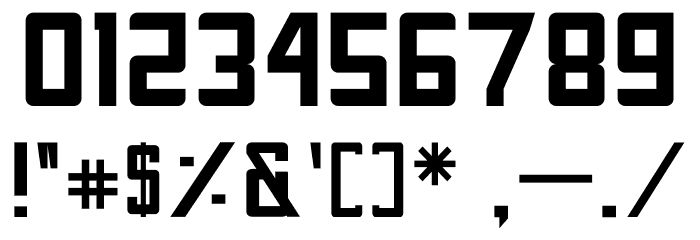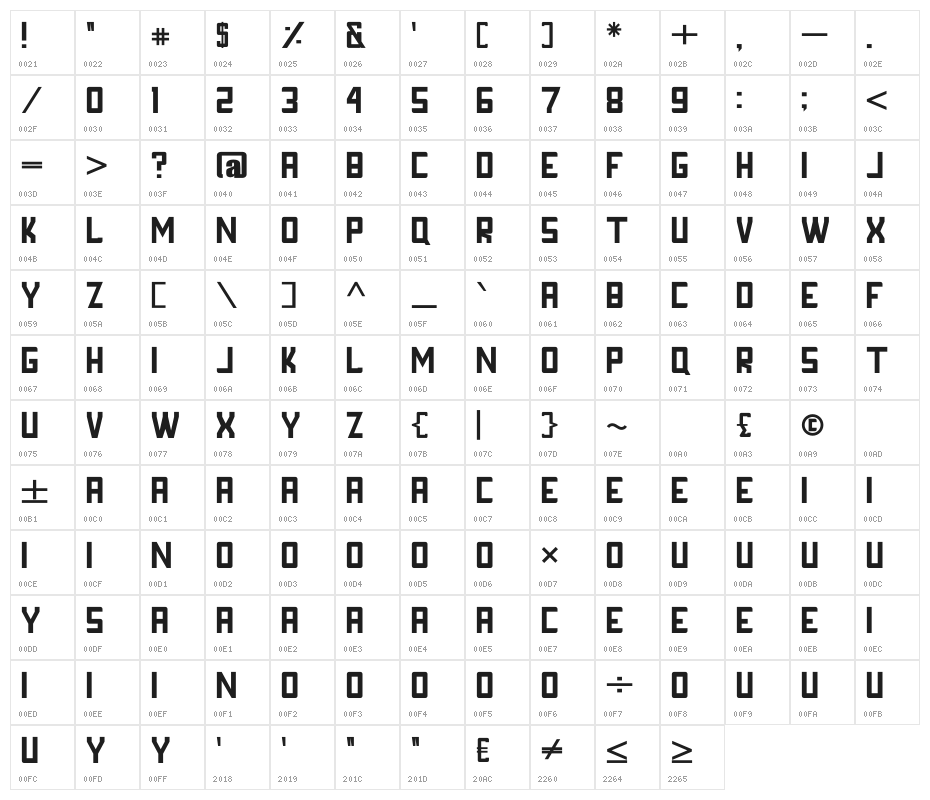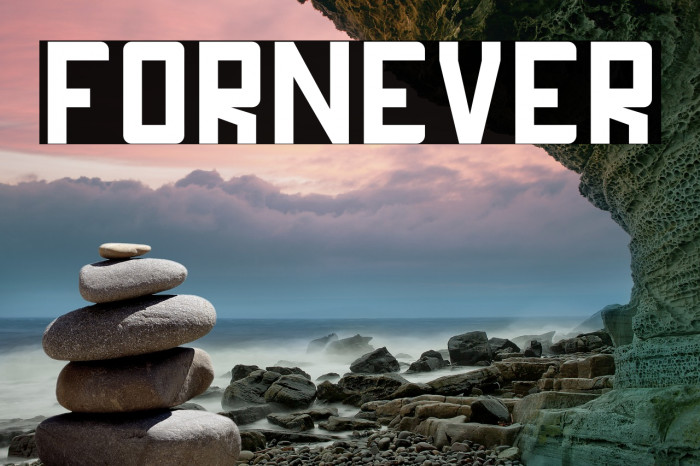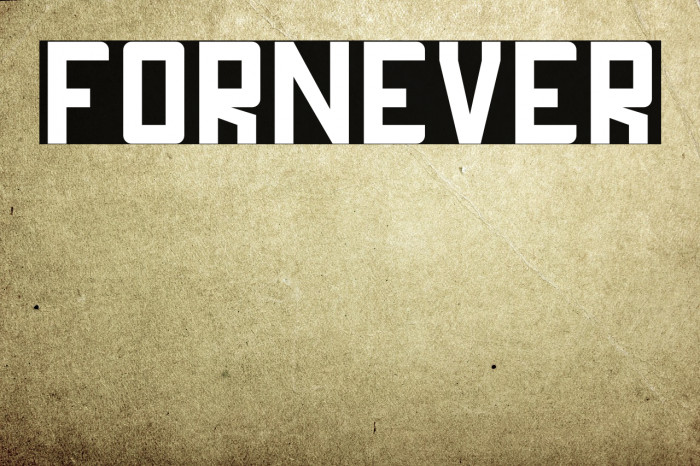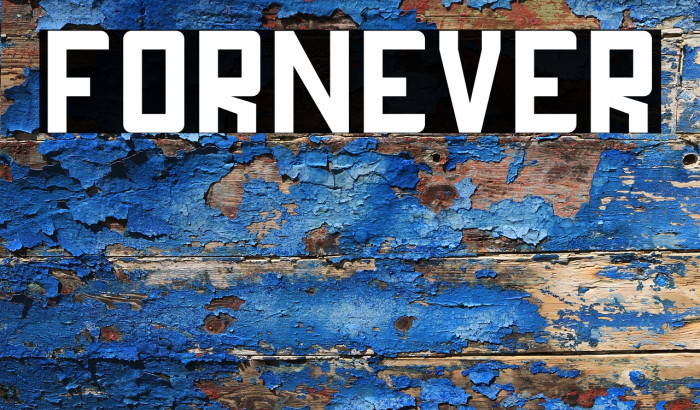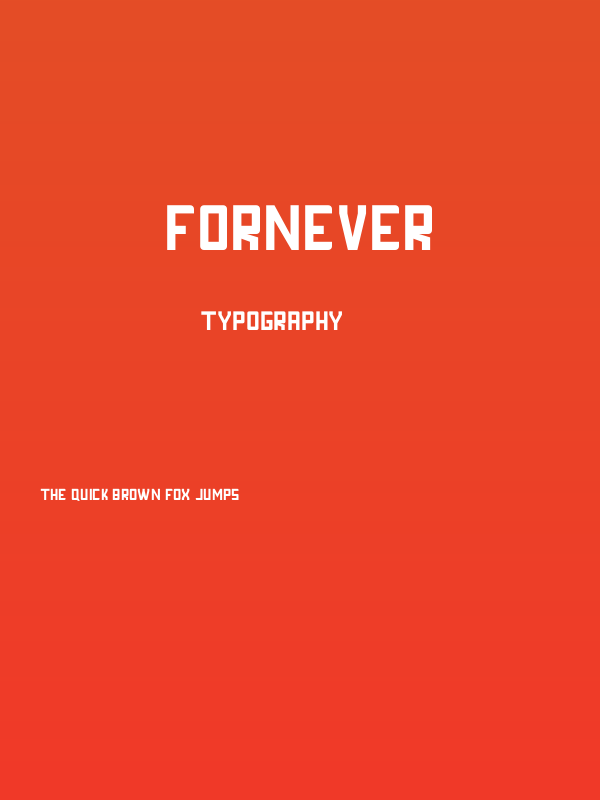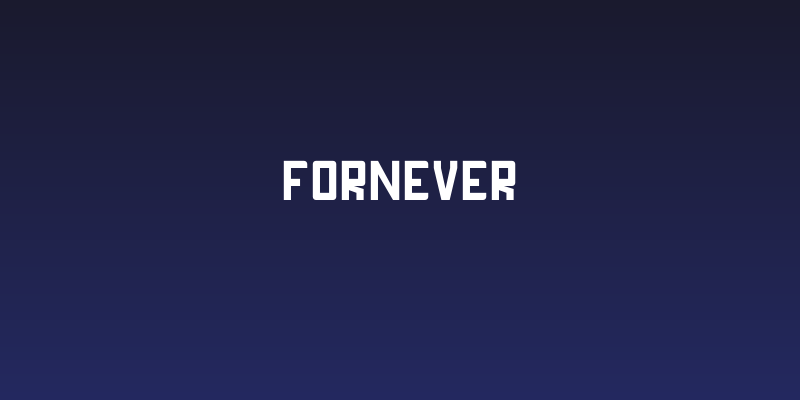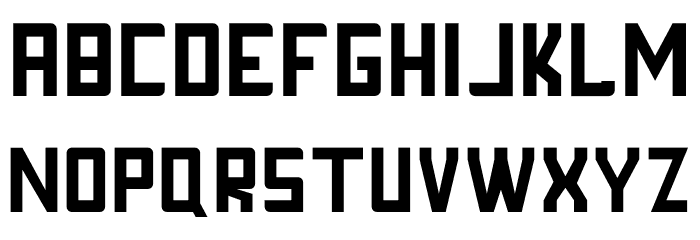
FORNEVER Font
FORNEVER Description
This font features a bold and geometric design with a modern, industrial feel. The characters are constructed with straight lines and sharp angles, giving them a strong and assertive presence. The uppercase letters are uniform in height, while the lowercase letters maintain a consistent style, enhancing readability. The numerals are similarly bold and structured, making them stand out effectively. Special characters are designed to match the overall aesthetic, ensuring a cohesive look across all text. This font's distinct style makes it suitable for projects that require a contemporary and impactful appearance.